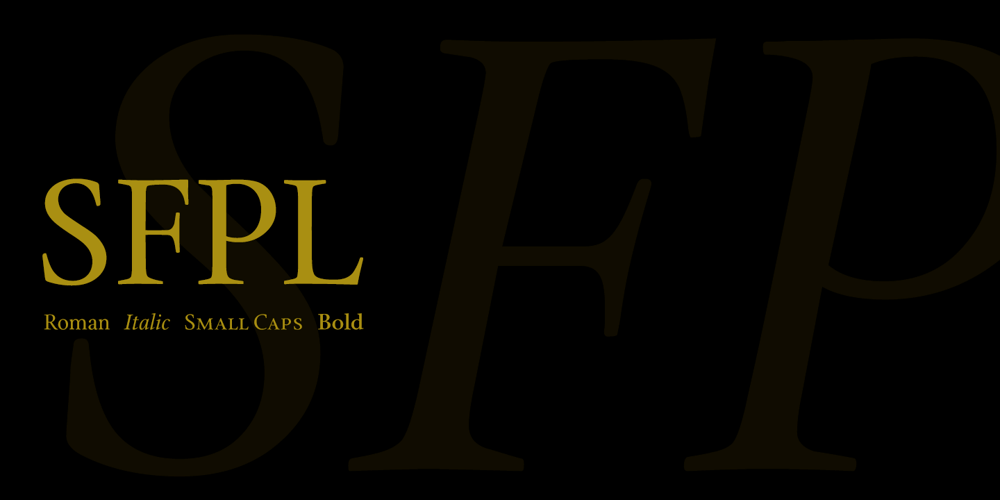
SFPL
SFPL font
SFPL Font Family was designed by Sumner Stone and published by Stone Type Foundry. SFPL contains 14 styles and family package options. The SFPL family was developed as part of a visual identity program for the San Francisco Public Library. It is intended as an economical, easy to use, highly legible typeface family for publishing newsletters, brochures, booklets, annual reports and the like. Together with Cycles, Stone Print, and Arepo it makes up a superfamily of typefaces.